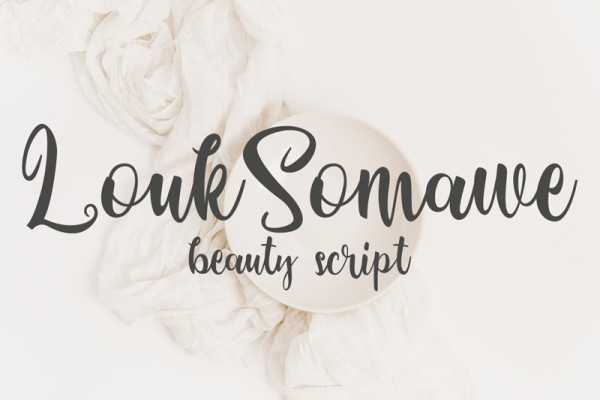
Louk Somawe Font
Louk Somawe Font is a sweet and subtle handwritten font that is crafted with great care for maximum results. It will add elegance and class to any of your design projects. This font can be used to write various kinds of products according to the aspect of each need.